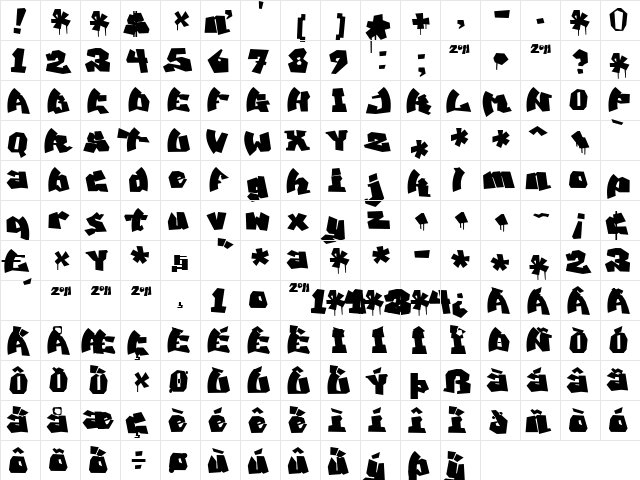
MAWNS Graffiti Filled Regular
Design Context for MAWNS Graffiti Filled Typeface
MAWNS Graffiti Filled is a composed and adaptable typeface that performs quietly and consistently across a wide range of design contexts.
Pro Tip: Use MAWNS Graffiti Filled in both headline and body roles to test its range before committing to a single application.